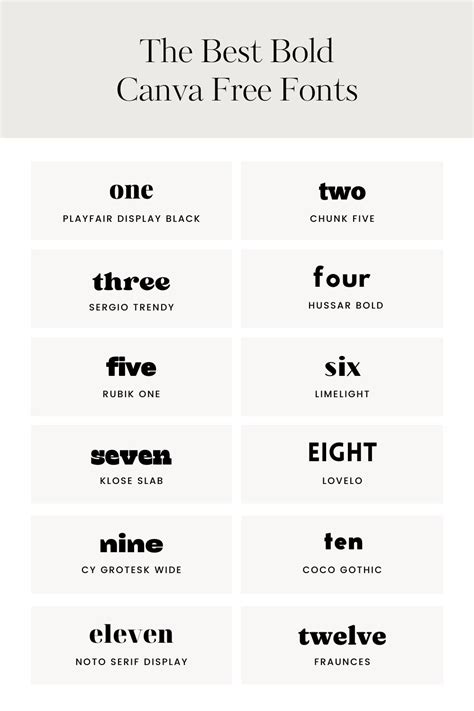
Canva Fonts Bold: How to Make Text Stand Out
Readers, have you ever struggled to make your text pop on Canva? Do you find yourself constantly searching for the perfect font to make your designs truly stand out? If so, you're not alone. Choosing the right font can be a challenge, especially when it comes to making your text bold and impactful. But fear not, because we're here to help! Canva Fonts Bold helps you create eye-catching designs. You'll discover how to make your text stand out with the help of bold fonts.
Why Bold Fonts Matter in Canva
Bold fonts play a crucial role in capturing attention and conveying a sense of importance. They add a touch of confidence, power, and clarity to your designs.
Importance of Visual Hierarchy
Creating a visual hierarchy in your designs is essential for guiding the viewer's eye and conveying information effectively. Bold fonts help create this hierarchy by emphasizing key elements and drawing attention to specific areas. For example, you might use a bold font for your headline to make it stand out from the body text.
Conveying Emotion and Tone
Bold fonts can also be used to convey different emotions and tones. A bold, sans-serif font can create a sense of modernity and boldness, while a bold, serif font might convey a more traditional or elegant feel.
Improving Readability
While bold fonts can make text stand out, it's important to use them judiciously. Too much bold text can make a design look cluttered and difficult to read. Use bold strategically to highlight key information and create a sense of rhythm within your design.
Choosing the Right Bold Font for Your Canva Designs
The world of fonts is vast and diverse, with countless styles to choose from. To help you navigate this landscape, we'll explore some popular and effective bold font categories for Canva.
Sans-Serif Bold Fonts
Sans-serif fonts, known for their clean lines and minimalist aesthetic, are a popular choice for creating bold and modern designs. Examples of impactful sans-serif bold fonts include:
- Roboto: Universally appealing and highly legible, making it ideal for various designs.
- Open Sans: Offers a clean, modern feel that complements a wide range of design styles.
- Arial Black: A classic bold sans-serif font that conveys confidence and authority.
Serif Bold Fonts
Serif fonts, characterized by their small decorative strokes at the ends of letterforms, offer a more traditional and elegant feel. Here are some notable serif bold fonts:
- Times New Roman: A timeless serif font that exudes a sense of professionalism and authority.
- Garamond: Offers a classic, elegant look, perfect for designs that require a touch of sophistication.
- Georgia: Provides a balanced and legible look, suitable for a variety of design applications.
Script Bold Fonts
Script fonts, inspired by handwriting, add a touch of personality and elegance to your Canva designs. Here are some popular script bold fonts:
- Pacifico: A playful, casual script font that adds a touch of whimsy to your designs.
- Allura: Offers a beautiful, cursive style perfect for wedding invitations or elegant branding.
- Lobster: A quirky and fun script font that adds a touch of personality to your design.
Tips for Using Bold Fonts in Canva
Once you've chosen your ideal bold font, it's crucial to use it effectively to make your Canva designs truly stand out.
Use Bold Fonts Strategically
Don't overuse bold fonts. Use them sparingly to highlight important elements and create a visually appealing hierarchy. Too much bold text can create a cluttered and overwhelming design.
Consider Font Pairing
Bold fonts can be paired with other fonts to create a harmonious and visually appealing design. A bold headline might be paired with a lighter-weight body font for a balanced look.
Experiment with Font Size and Weight
The size and weight of your bold fonts can significantly affect their impact. Experiment with different sizes and weights to find the perfect balance that suits your design and message.
Pay Attention to Spacing
Proper spacing between letters and words is crucial for readability. If your bold font is too tightly spaced, it can be difficult to read. Adjust the spacing as needed to ensure your text is easy on the eyes.
Use Bold Fonts for Emphasis
Bold fonts are excellent for emphasizing specific words or phrases. Use them strategically to guide the reader's attention to key elements of your design.
Canva Fonts Bold: A Table Breakdown
To illustrate the power of bold fonts in Canva, let's explore a table breakdown of key features and considerations.
Canva Fonts Bold are essential for making your designs stand out. By understanding the importance of bold fonts, exploring different font categories, and using them strategically, you can create Canva designs that are visually appealing, impactful, and memorable. Ready to explore even more design tips? Head over to our blog for more articles on Canva and other design resources. Happy designing!